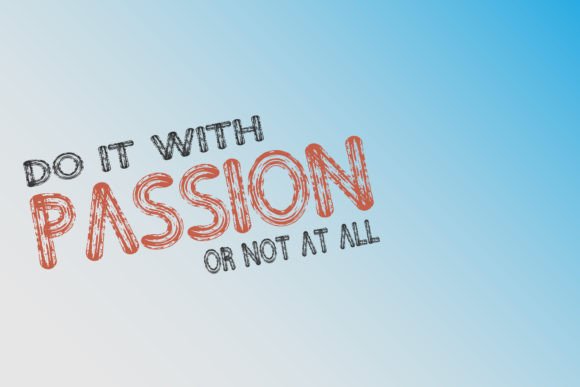
Introducing Brush Font: The Quirky and Groovy Display Font You Need
Are you tired of using the same old fonts for your designs? Look no further than Brush Font, a fun and bold display font that’s perfect for adding a touch of personality to your projects. With its quirky and groovy vibe, Brush Font is ideal for a wide range of applications, from crafting and DIY projects to digital designs and marketing materials.
What is Brush Font?
Brush Font is a display font that’s designed to make a statement. Its bold and playful strokes are reminiscent of traditional brush lettering, but with a modern twist that’s perfect for contemporary designs. The font features a unique blend of hand-drawn and digital elements, giving it a distinctive look that’s both fun and sophisticated.
Key Features of Brush Font
- Quirky and Groovy: Brush Font has a playful, laid-back vibe that’s perfect for designs that need a bit of personality.
- Bold and Eye-Catching: With its thick, expressive strokes, Brush Font is designed to grab attention and make a statement.
- Versatile: Brush Font is suitable for a wide range of applications, from digital designs and social media graphics to crafting and DIY projects.
- Easy to Read: Despite its bold and playful nature, Brush Font is surprisingly easy to read, making it perfect for headlines, titles, and short paragraphs of text.
Uses for Brush Font
So, what can you use Brush Font for? The possibilities are endless! Here are a few ideas to get you started:
- Crafting and DIY Projects: Add a personal touch to your crafting and DIY projects with Brush Font. Use it to create custom titles, labels, and signs for your scrapbooking, journaling, and other paper crafting projects.
- Digital Designs: Brush Font is perfect for digital designers who want to add a bit of personality to their work. Use it to create eye-catching social media graphics, blog headers, and other digital elements.
- Marketing Materials: Make your marketing materials stand out with Brush Font. Use it to create bold and eye-catching headlines, titles, and taglines for your brochures, flyers, and other promotional materials.
- Signs and Posters: Brush Font is ideal for creating eye-catching signs and posters. Use it to create bold and attention-grabbing headlines and titles for your events, sales, and promotions.
Tips for Using Brush Font
Here are a few tips for getting the most out of Brush Font:
- Use it Sparingly: Brush Font is a bold and attention-grabbing font, so use it sparingly to avoid overwhelming your designs.
- Pair it with Other Fonts: Brush Font pairs well with a variety of other fonts, including sans-serif fonts, script fonts, and serif fonts. Experiment with different pairings to find the one that works best for your design.
- Experiment with Colors: Brush Font looks great in a variety of colors, from bold and bright to soft and pastel. Experiment with different colors to find the one that works best for your design.
| Font Name | Brush Font |
| Author | MistyDesigns |
Brush Font is a fun and bold display font that’s perfect for adding a touch of personality to your designs. With its quirky and groovy vibe, Brush Font is ideal for a wide range of applications, from crafting and DIY projects to digital designs and marketing materials. Whether you’re a designer, crafter, or DIY enthusiast, Brush Font is a great addition to your font collection.